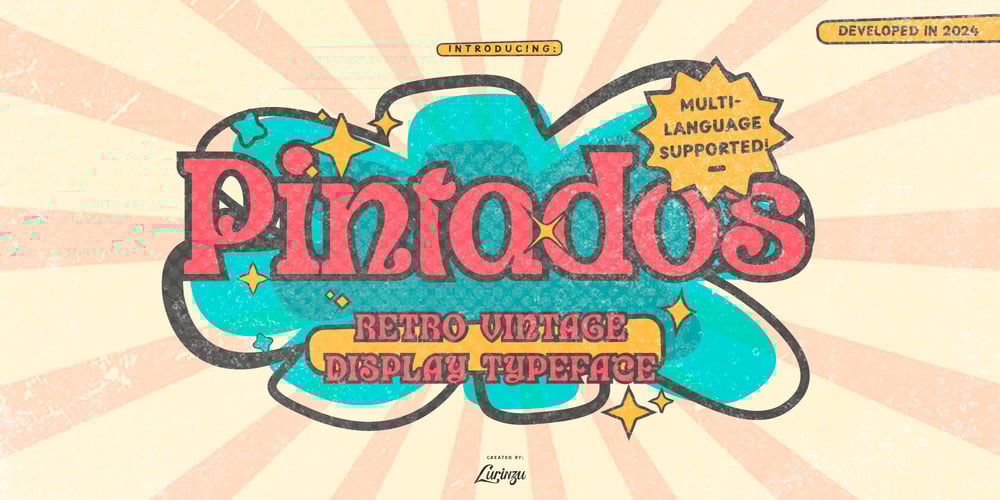
Pintados Font Family was designed by Lorenzo Gabriel Martinez and published by Lurinzu Studios. Pintados contains 1 styles and family package options. “Pintados” is a vintage retro display typeface that is inspired by the old school filipino comedy film/ show posters from the 70s-80s era. The main idea or concept here is for the letters to look more hand painted rather than write (like how usual fonts are made)This typeface works well for a more organic, hand crafted, retro-vintage like designs to maximize the playfulness and characteristic of each letterform.*This font includes letters, numbers, multi-language, and all essential marks needed.